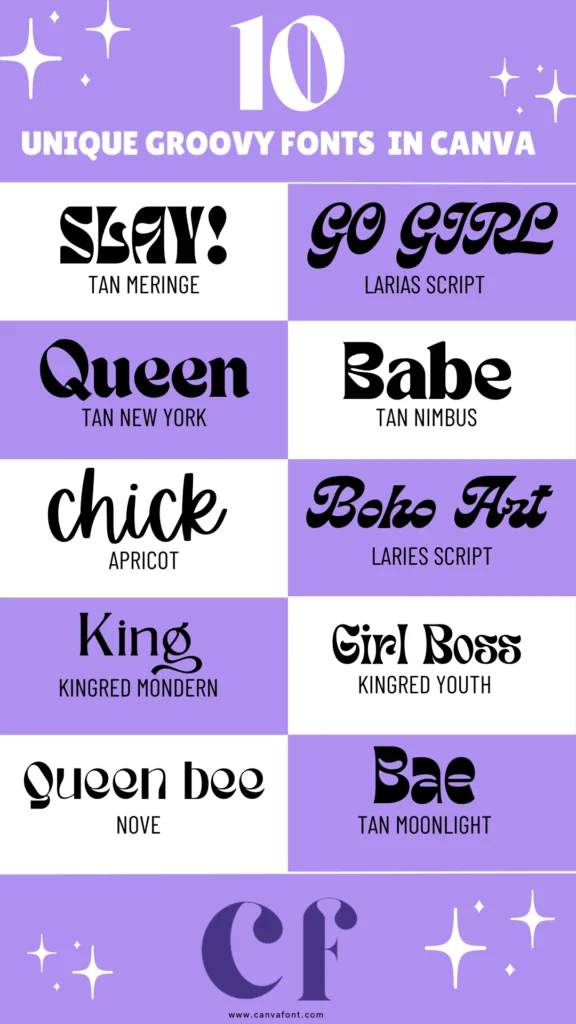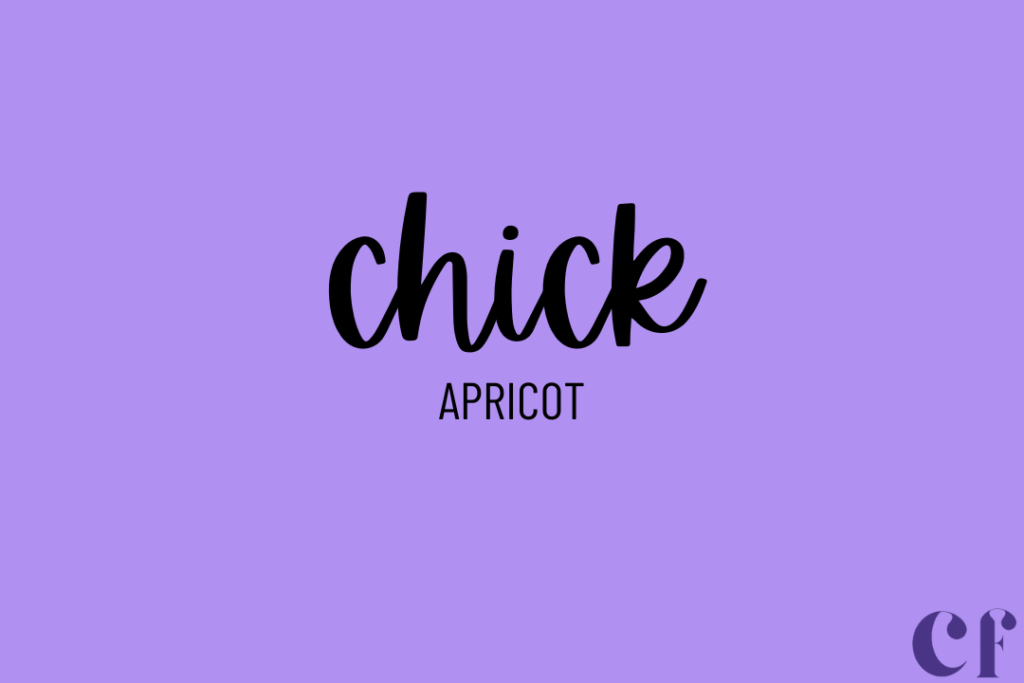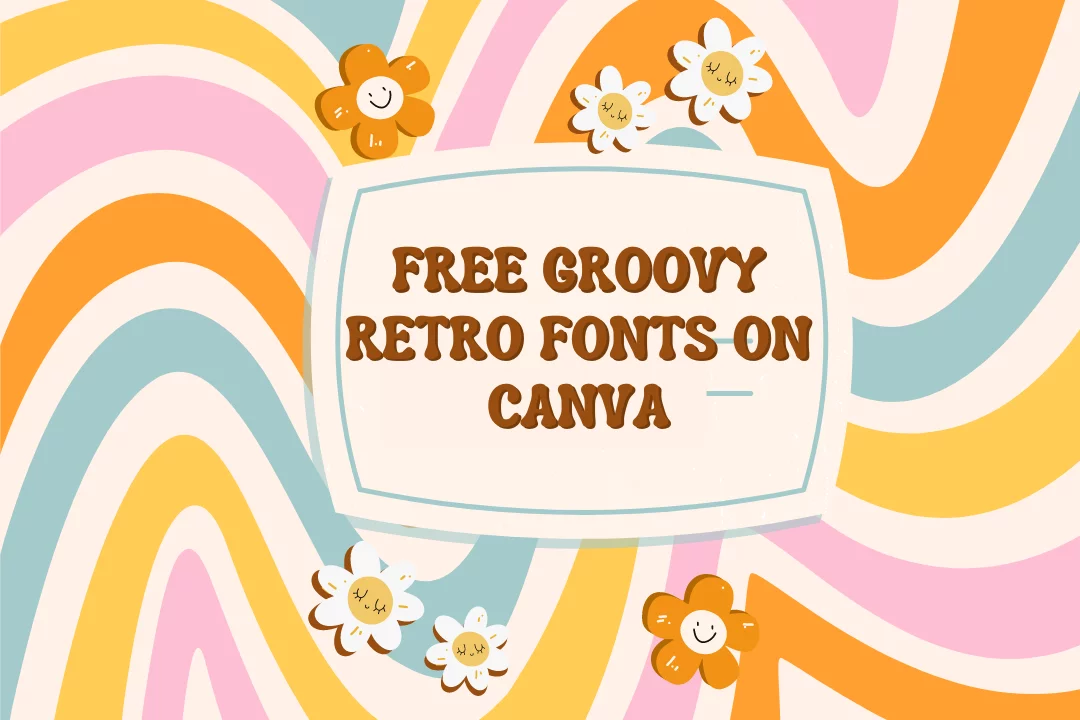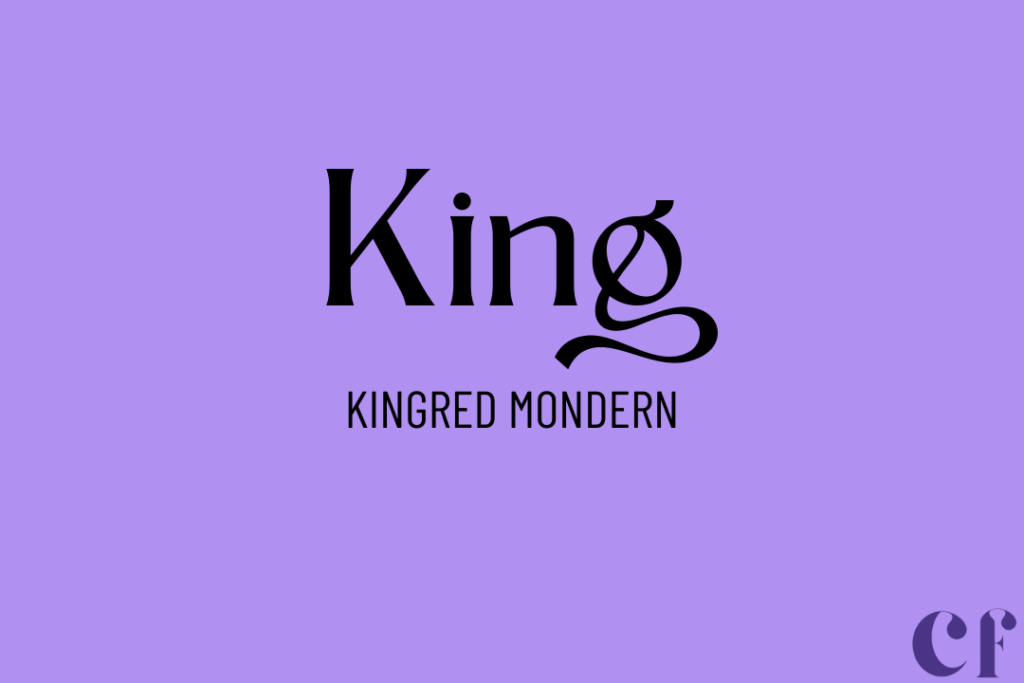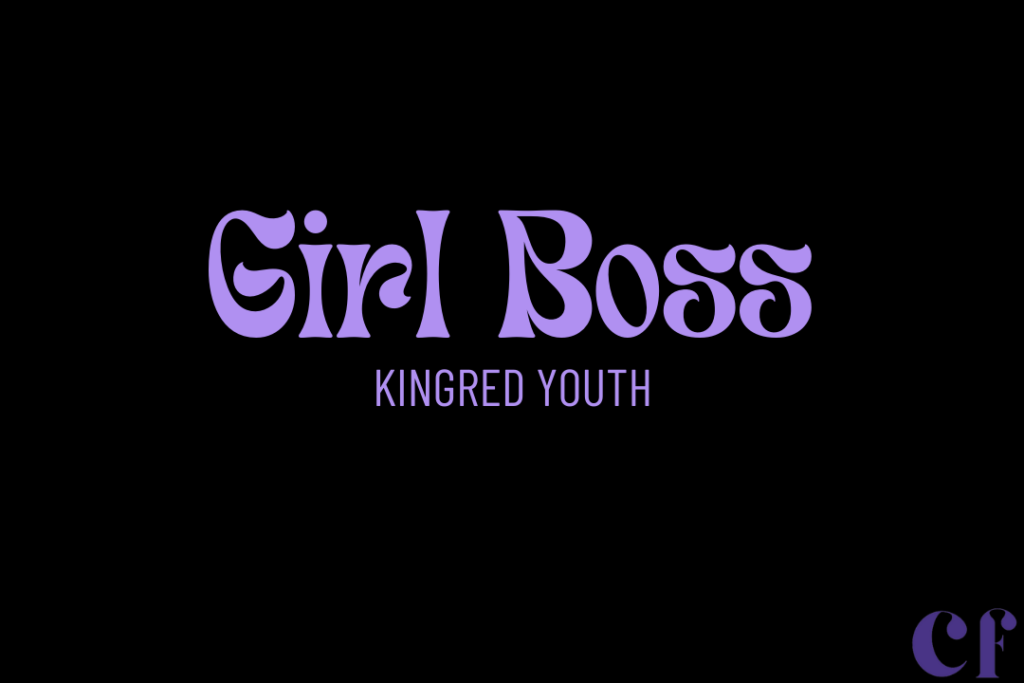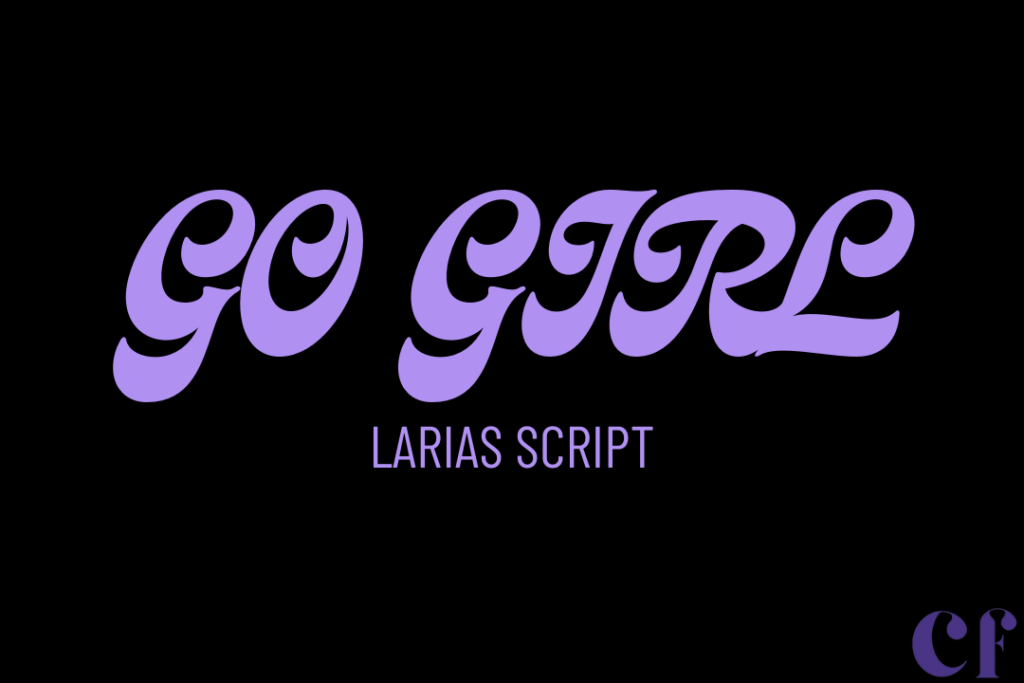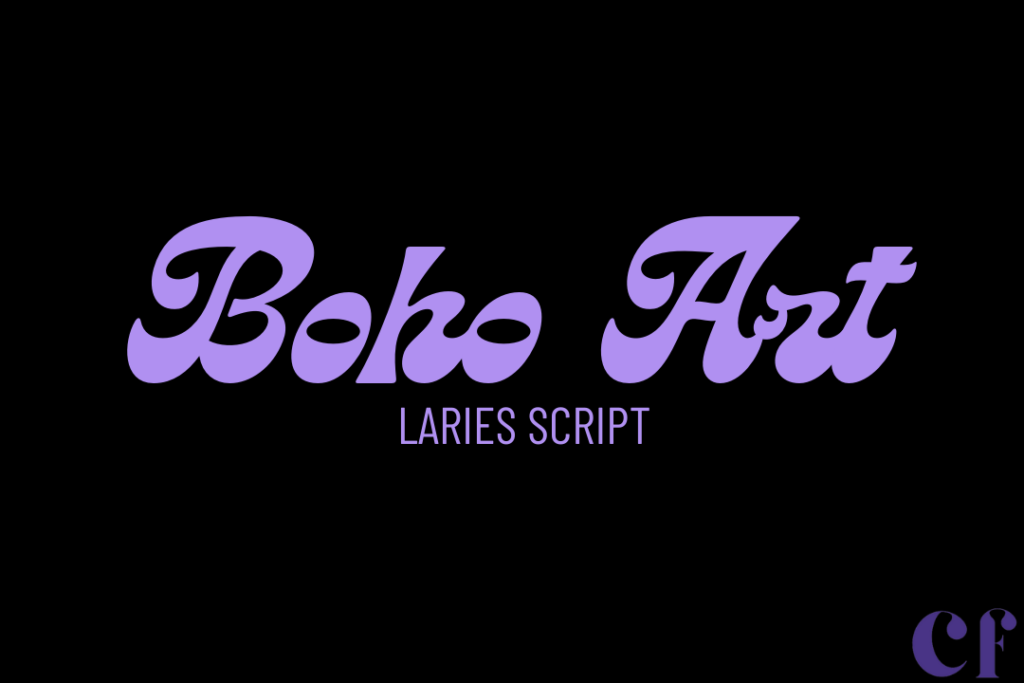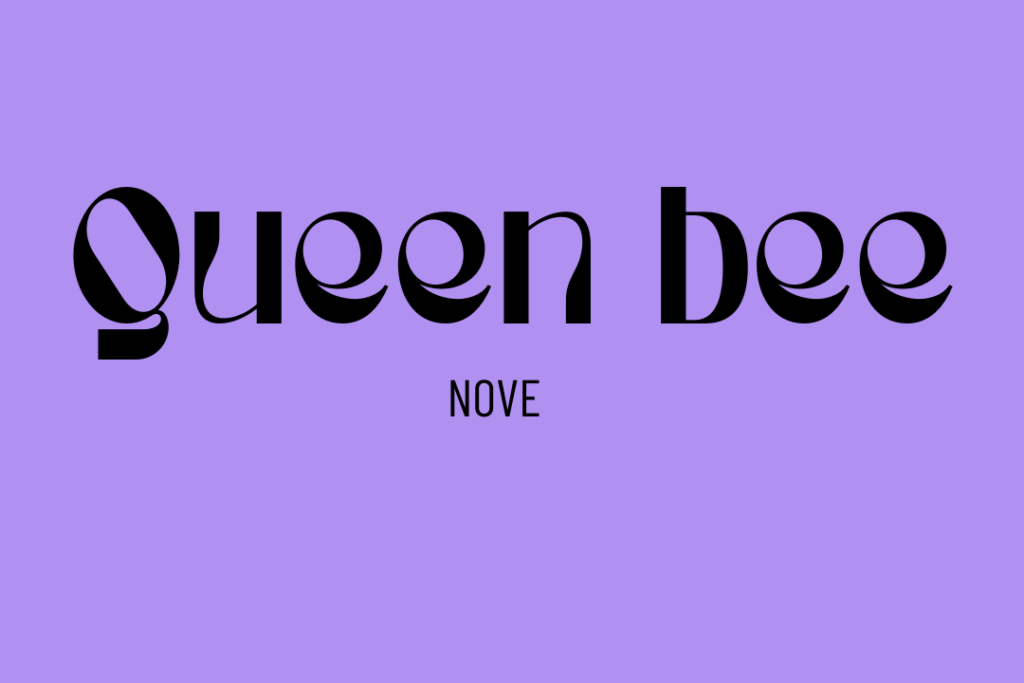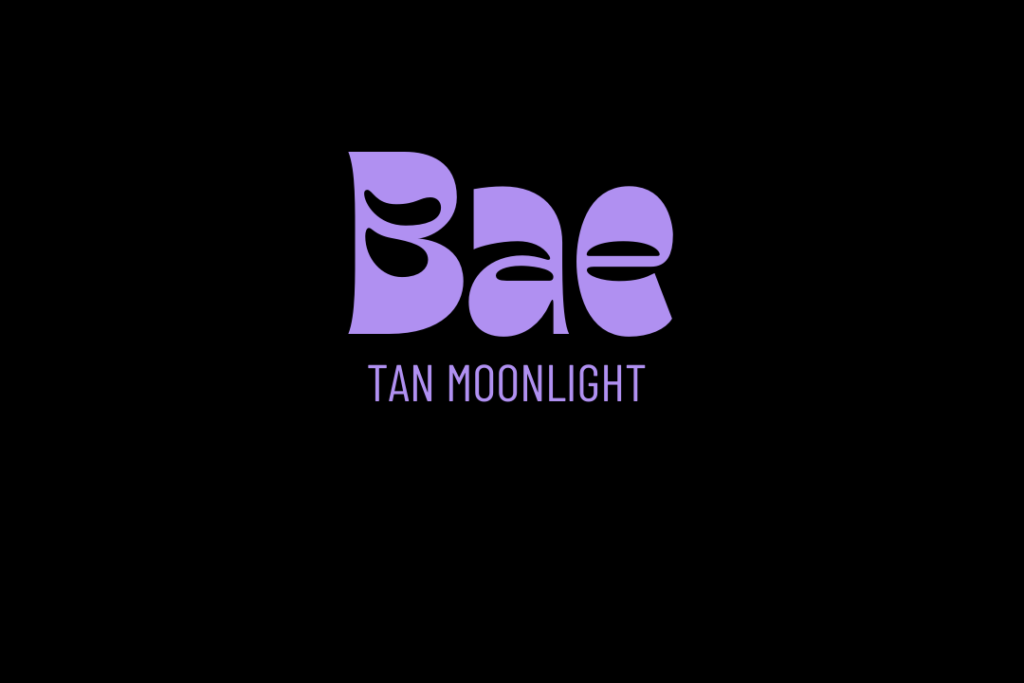
10 Best Free Groovy Retro Fonts on Canva
We all know the recent iconic appearance of the Groovy/Retro font was featured in the movie “Barbie.” Groovy retro fonts are making a comeback in modern design, capturing the nostalgic vibe of the past while adding a fresh, stylish twist.
In fact, all the designs in this article were made using Canva. It offers a variety of these 10 trendy fonts for free, making it easier for designers to infuse their projects with a touch of retro charm.
1. TAN MERINGE
• TAN MERINGUE is a playful, retro font with whimsical curves.
• I use it for vintage posters, it adds a fun, nostalgic touch to any design project.
2. LARIAS SCRIPT
LARIAS SCRIPT
• LARIAS SCRIPT exudes elegance with its flowing cursive strokes and graceful loops.
• Whenever I work on wedding invitations, it brings a romantic and sophisticated feel to designs.
3. TAN NEW YORK
TAN NEW YORK canva font
• TAN NEW YORK combines modernity with classic elegance, featuring clean lines and a sleek appearance.
• It’s perfect for minimalist designs, adding a touch of sophistication to any project.
4. TAN NIMBUS
TAN NIMBUS
I use TAN NIMBUS here for its modern, clean style, perfect for creating a welcoming vibe in both digital and print designs.
5. APRICOT
APRICOT
• APRICOT stands out with its playful and whimsical appearance, ideal for adding a touch of creativity to children’s book illustrations.
• I’ve utilized the Typeface in various projects, from social media graphics to posters, enhancing the overall appeal with its friendly and inviting vibe.
6. LARIES SCRIPT
LARIES SCRIPT canva font
• LARIES SCRIPT exudes sophistication with its fluid lines and elegant curves, perfect for upscale invitations and luxury branding projects.
• In my design practice, I often rely on this script style to convey a sense of refinement and class, whether in creating logos or designing bespoke event materials.
7. KINGRED MONDERN
KINGRED MONDERN
• KINGRED MONDERN embodies contemporary minimalism, characterized by clean lines and sleek geometry, ideal for modern websites and digital interfaces.
• I integrate this modern typeface into my designs to achieve a streamlined aesthetic that resonates with today’s digital audience, ensuring clarity and visual appeal without unnecessary embellishments.
8. KINGRED YOUTH
KINGRED YOUTH
• “Kingred Youth” embodies a sophisticated swirliness, ideal for creating an aura of mystique and exclusivity, particularly favored in luxury and niche brand identities.
• Its curvaceous nature lends a touch of elegance and intrigue, making it a compelling choice for brands seeking to evoke allure and sophistication in their visual identity.
9. NOVE
NOVE
• “Nove” exemplifies a sleek and minimalist typeface, perfect for conveying modernity and simplicity in digital and print designs alike.
• Its clean lines and understated elegance make “Nove” an excellent choice for brands aiming to communicate professionalism and contemporary appeal effortlessly.
10. TAN MOONLIGHT
TAN MOONLIGHT canva font
• “Tan Moonlight” captures a romantic and elegant style, ideal for projects seeking to evoke a sense of evening charm and sophistication.
• With its graceful curves and refined details, “Tan Moonlight” lends a touch of poetic grace to designs, making it suitable for luxury brands and artistic endeavors.
Canva’s provision of these fonts for free allows me to seamlessly integrate retro charm into my designs, catering to diverse aesthetic preferences and project needs. Whether for branding, advertising, or personal projects, these fonts not only offer style but also ensure that I achieve visually captivating results effortlessly.